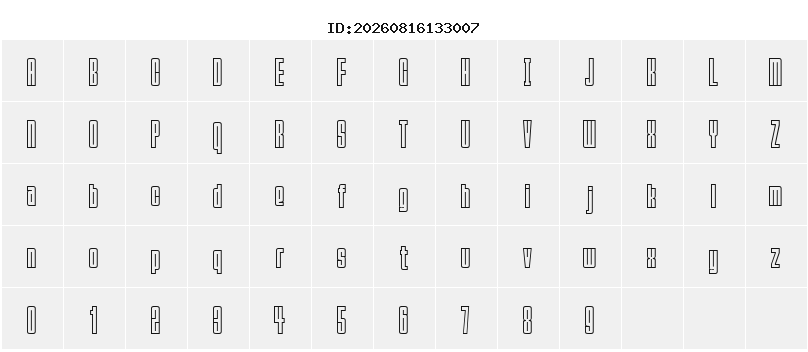
Squeeze Me Baby Preview
• Font Name: Squeeze Me Baby
• Full Font Name: Squeeze Me Baby
About Squeeze Me Baby.ttf
Squeeze Me Baby.ttf is a modern, elegant sans-serif font designed for ultimate readability and visual harmony. Perfect for branding, headlines, web design, and print materials.